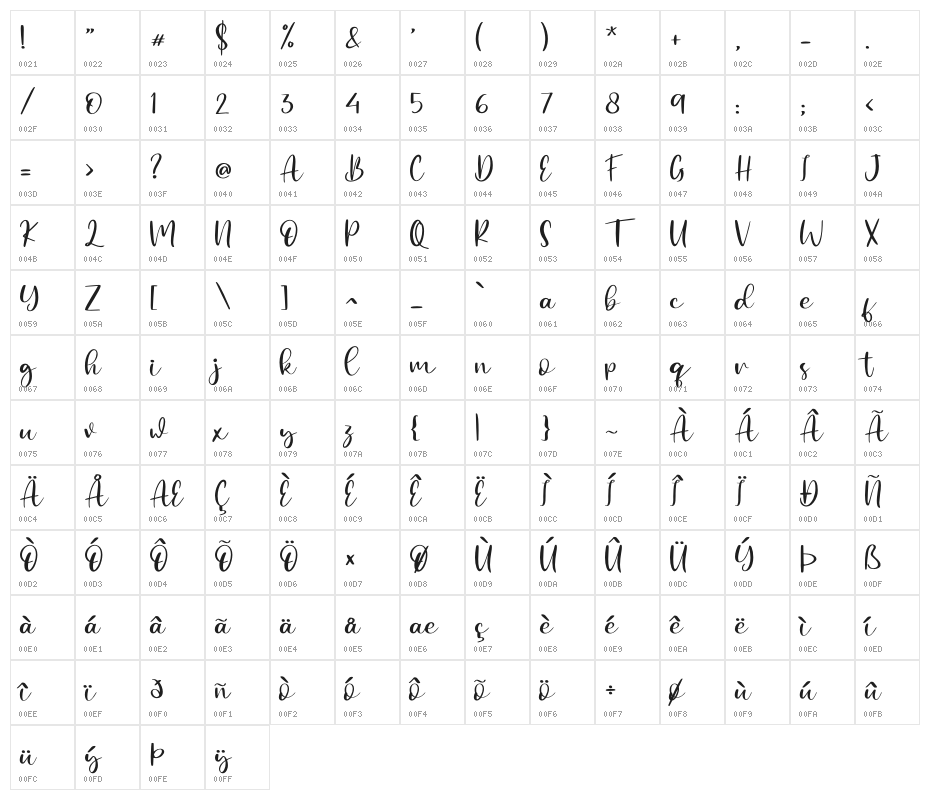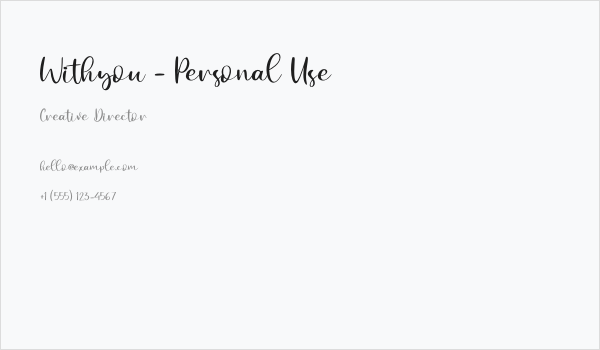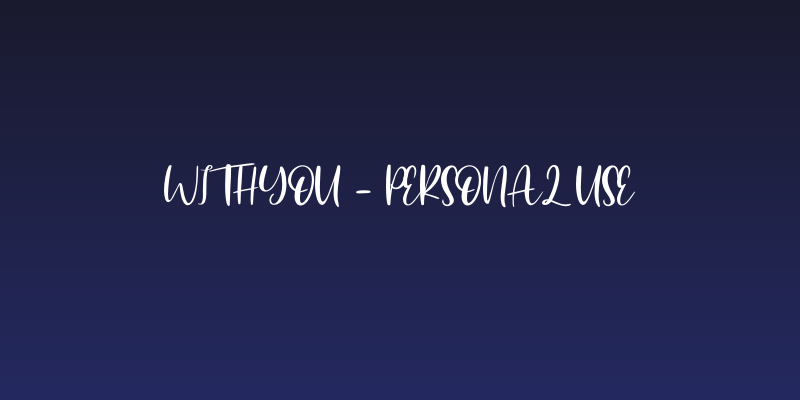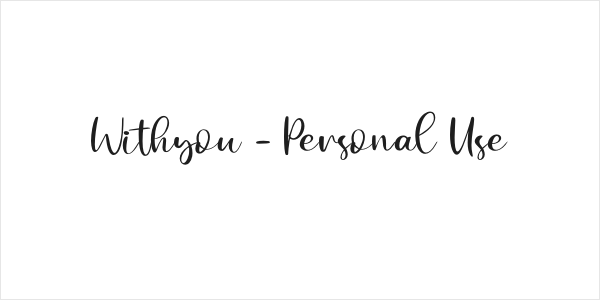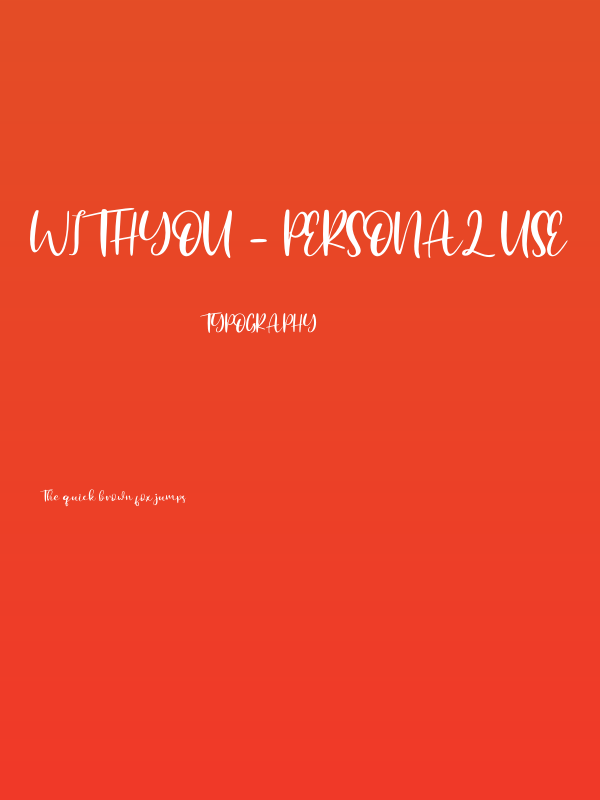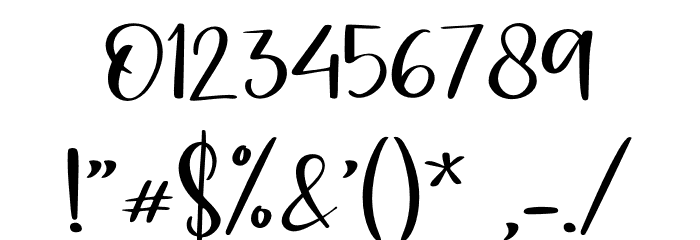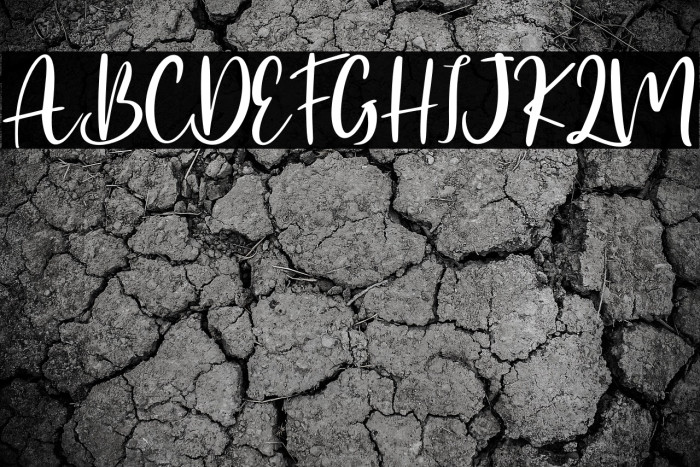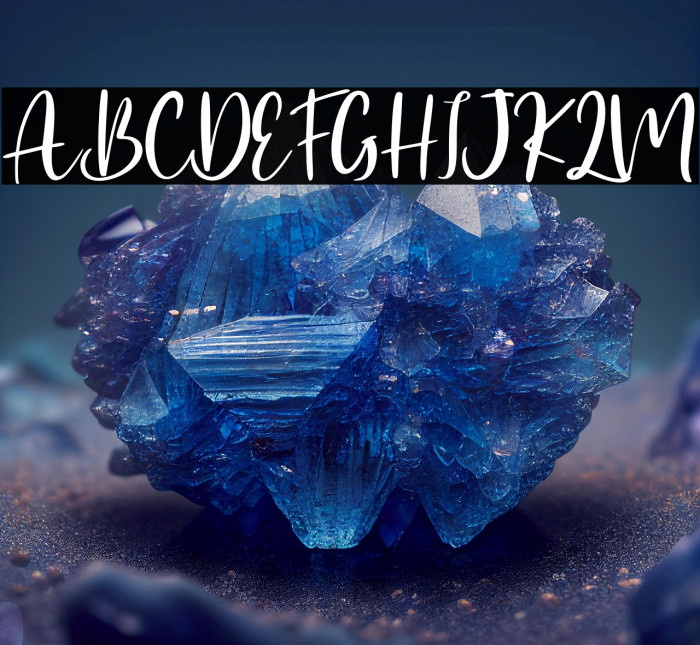
Withyou - Personal Use Font
✎ Script
Withyou - Personal Use Description
This font features a lively and flowing script style, characterized by its elegant and cursive letterforms. The uppercase letters are bold and dynamic, with sweeping curves and a sense of movement, while the lowercase letters maintain a consistent flow with smooth connections. The numerals are distinct and easy to read, complementing the overall aesthetic. Special characters are creatively integrated, adding to the font's versatility. The design exudes a sense of personality and charm, making it suitable for projects that require a personal touch.
| Use Case | Logos, Invitations, Greeting Cards |
| Proposed Projects | Ideal for wedding invitations, greeting cards, branding, and personal projects where a touch of elegance is desired. |